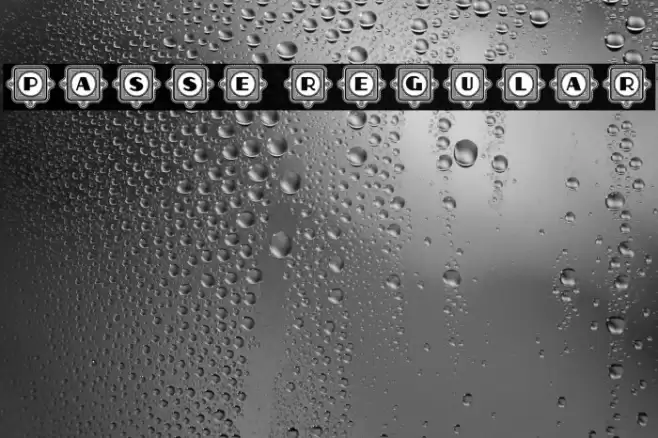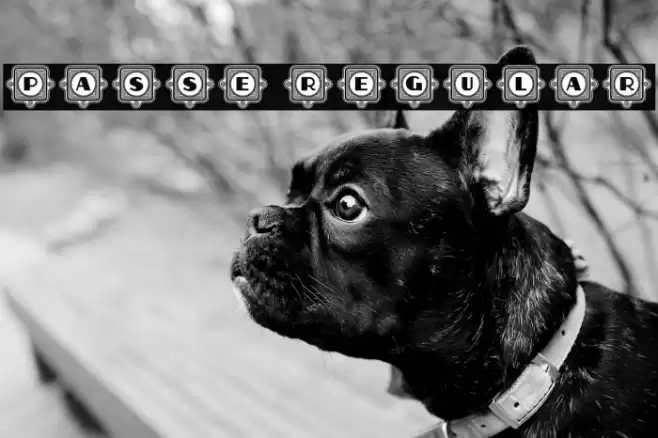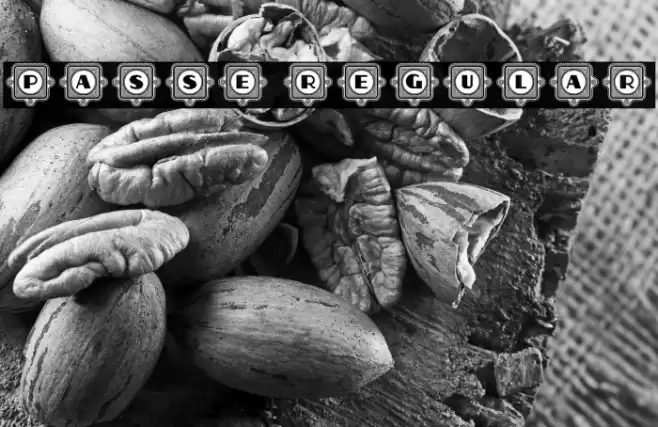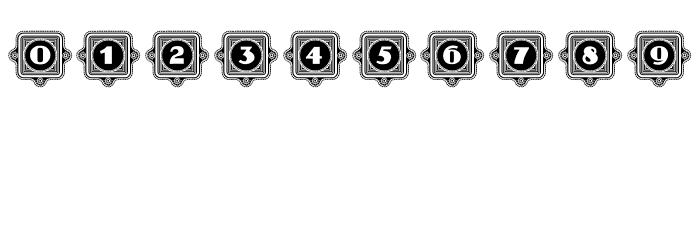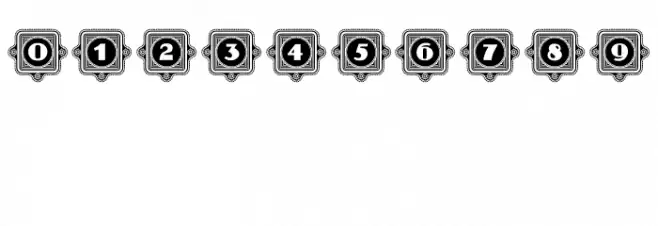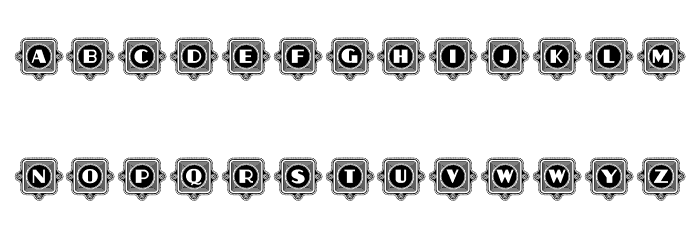
Passe Regular Font
Passe Regular Description
This font features a unique, decorative style reminiscent of vintage typewriter keys. Each character is encased in a square frame with ornate detailing, giving it a distinct, nostalgic appearance. The letters are bold and well-defined, with a consistent stroke weight that ensures readability. The numbers and special characters follow the same design, maintaining uniformity across the set. This font is ideal for projects that require a touch of retro charm and elegance.
A decorative, vintage-style font with characters encased in ornate frames from Uncategorized fonts.
- Font: Passe Regular
- Proposed Projects: Ideal for vintage-themed designs, posters, invitations, and branding that seeks a retro aesthetic.
- Overall Style: Vintage